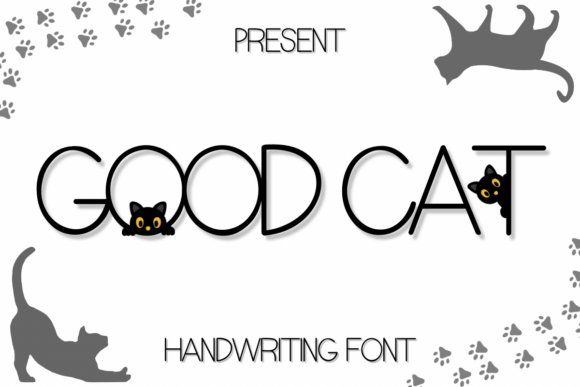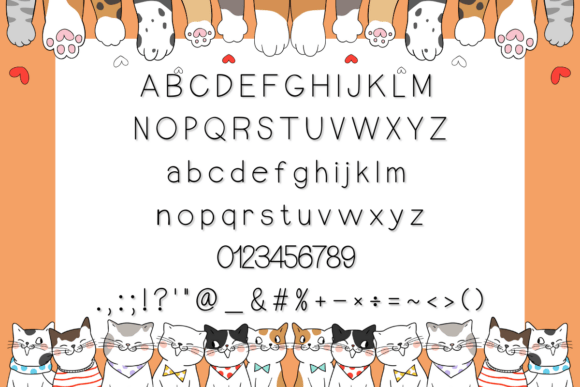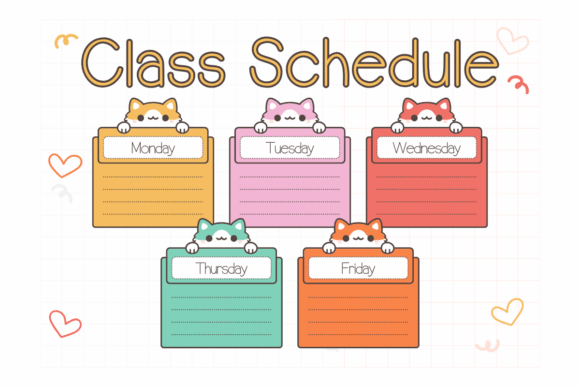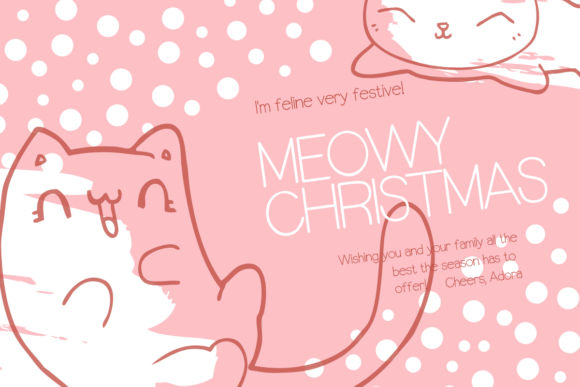
Good Cat Font
About the Good Cat Font
Experience the unique personality of Good Cat Font, a font designed for impact. Good Cat is a handwritten font. You can use it for taking notes, writing a diary or making greeting cards. However you can still use it for other designs such as banners content mugs cards shirts stationery social media posts and more!
Good Cat’s casual, handwritten style shines in projects needing a friendly, approachable feel. It’s ideal for branding for small businesses, particularly those in food, crafts, or children’s products. Use it effectively on logos, short headlines, social media graphics, and packaging where its charm adds personality. Avoid using it for large blocks of body text or UI elements; its informality would hinder readability.
Pairing Good Cat with a clean sans-serif like Open Sans for body copy creates a strong contrast and visual balance. For a more playful aesthetic, consider pairing it with a geometric sans-serif such as Futura. A classic serif like Garamond can add a touch of sophistication if a more formal feel is needed.
Good Cat’s overall personality is best described as friendly and approachable, making it unsuitable for projects requiring a serious or corporate tone. Its informal nature makes it a great choice for conveying warmth and approachability, but less suitable for formal documents or applications.